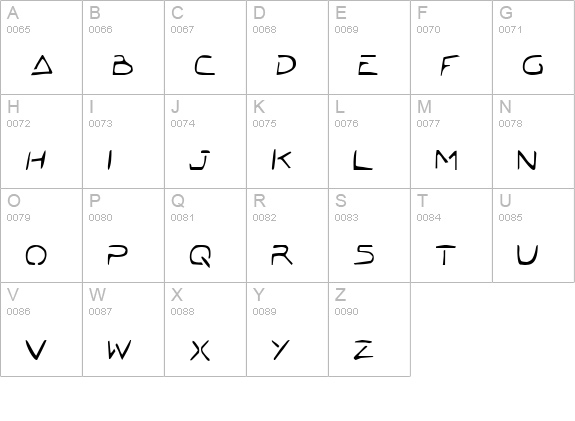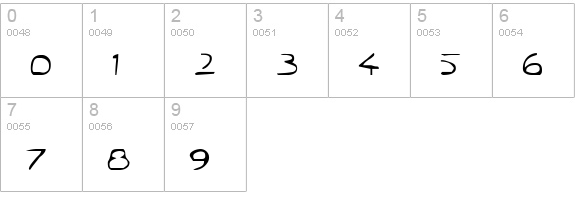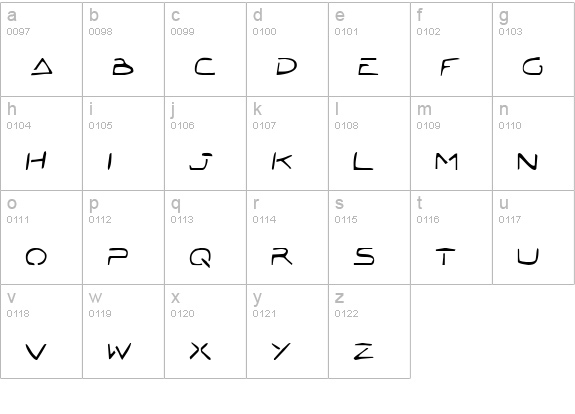
Jetta Tech Condensed is a distinctive, condensed-width variant in the Jetta typeface family \xE2\x80\x94 well suited to design and typography projects.
Introducing Jetta Tech Condensed font, a sleek and modern typeface that exudes sophistication and professionalism. With its clean lines and sharp edges, this font is perfect for creating a contemporary and stylish look in your designs. Jetta Tech Condensed font is versatile and can be used for a wide range of projects, from branding to web design to printed materials. Its condensed form allows for efficient use of space while still maintaining readability and impact. Best of all, Jetta Tech Condensed font is completely free to download at FontsMarket.com. Whether you're a designer looking to add a touch of elegance to your creations or a business in need of a polished and modern font for your branding, Jetta Tech Condensed font is the perfect choice. Download it today and elevate your designs to the next level with this stunning typeface.